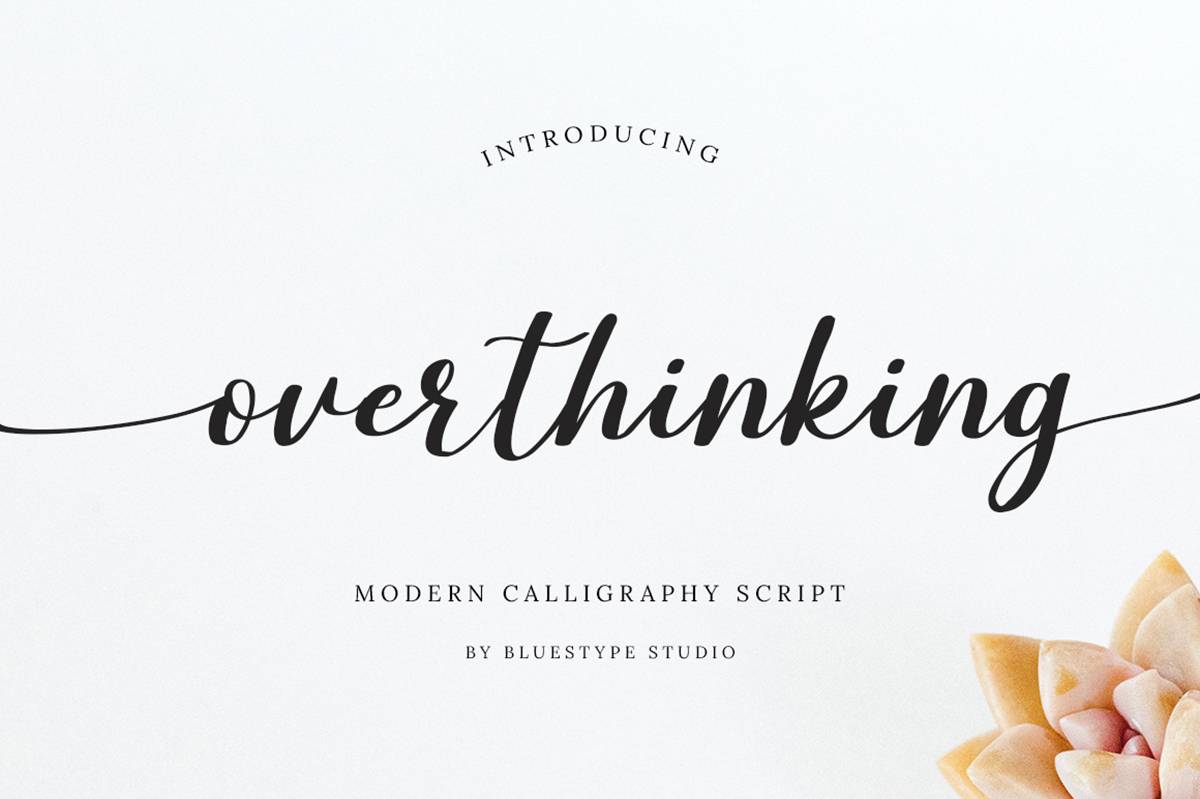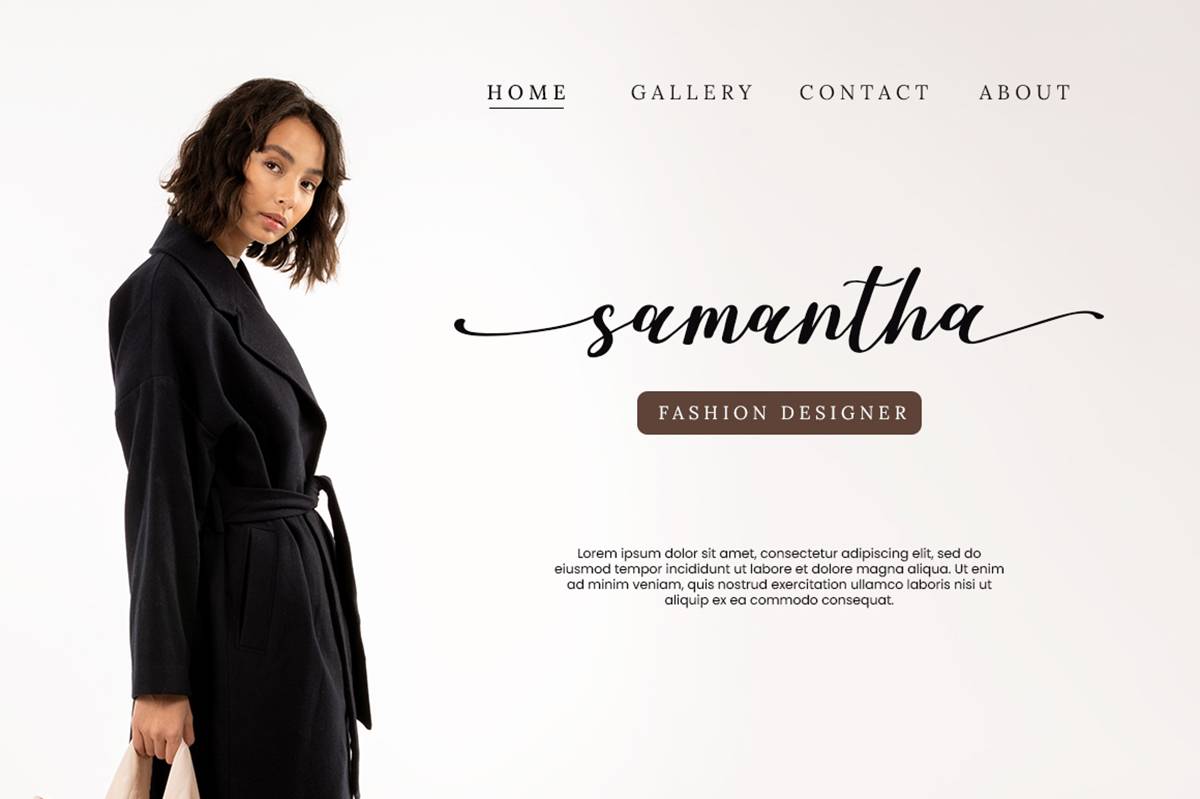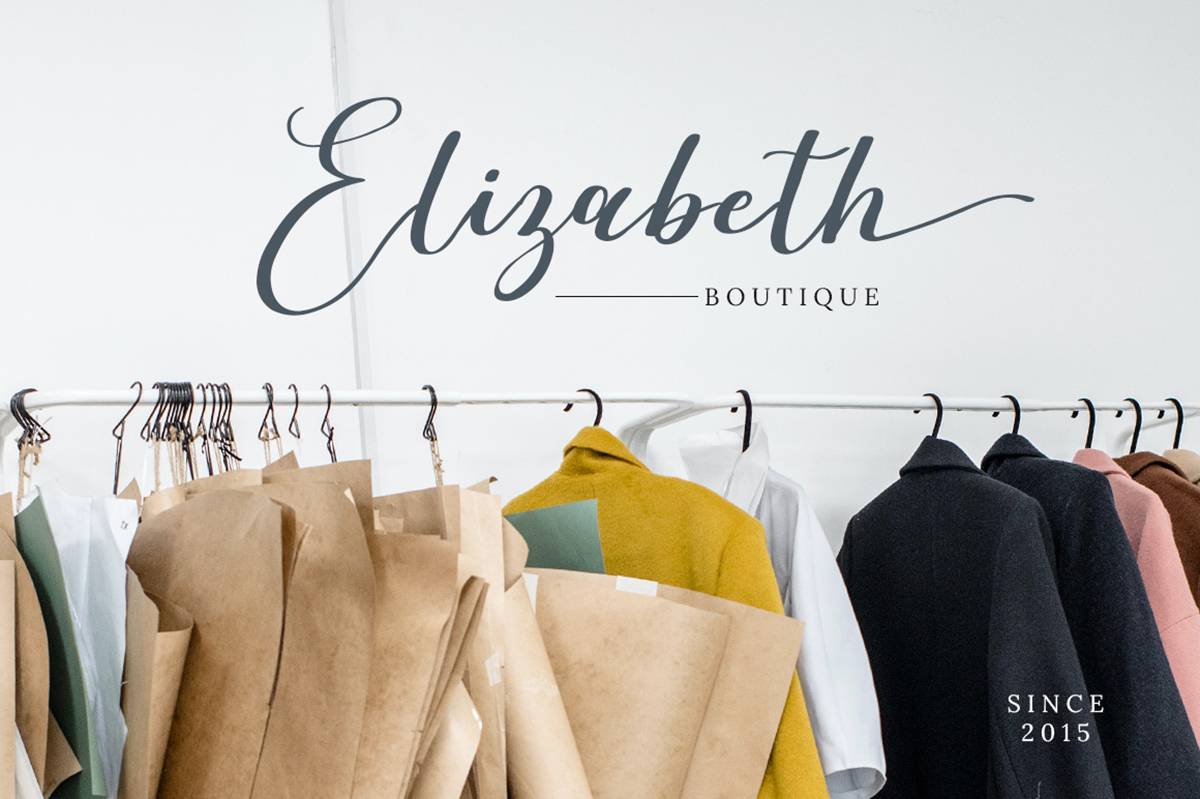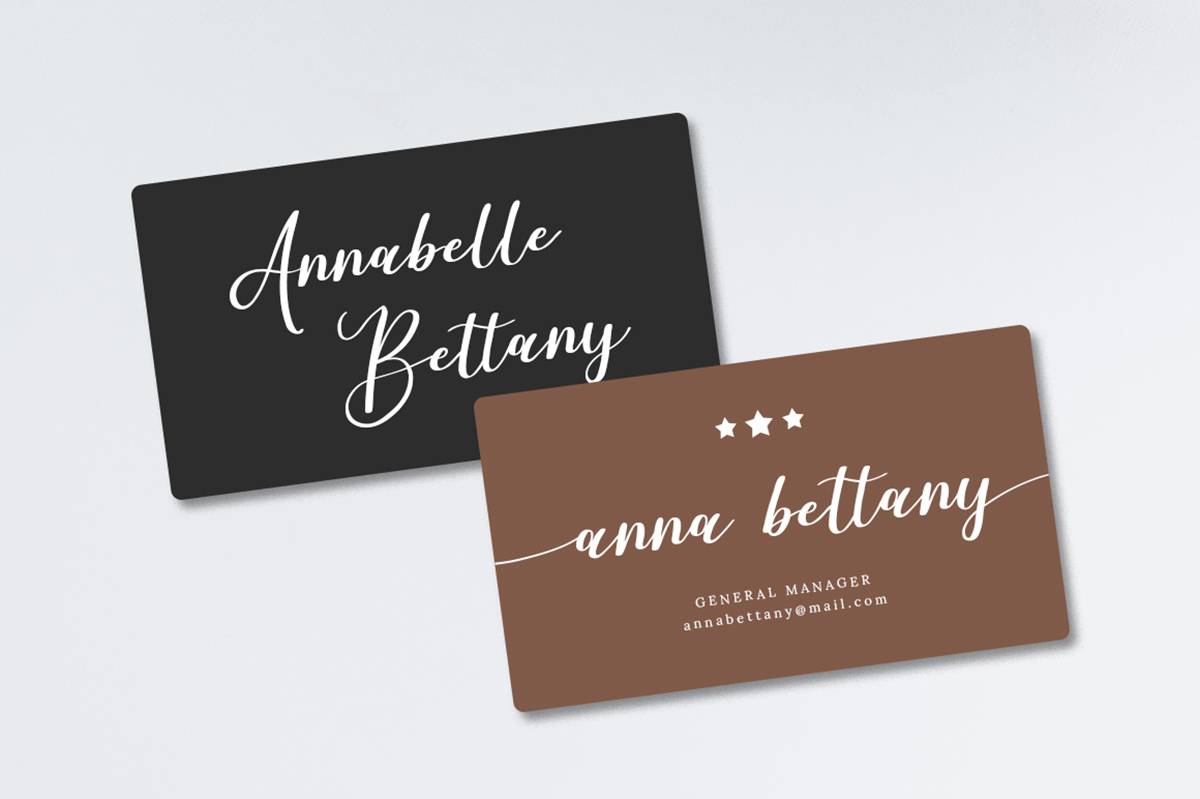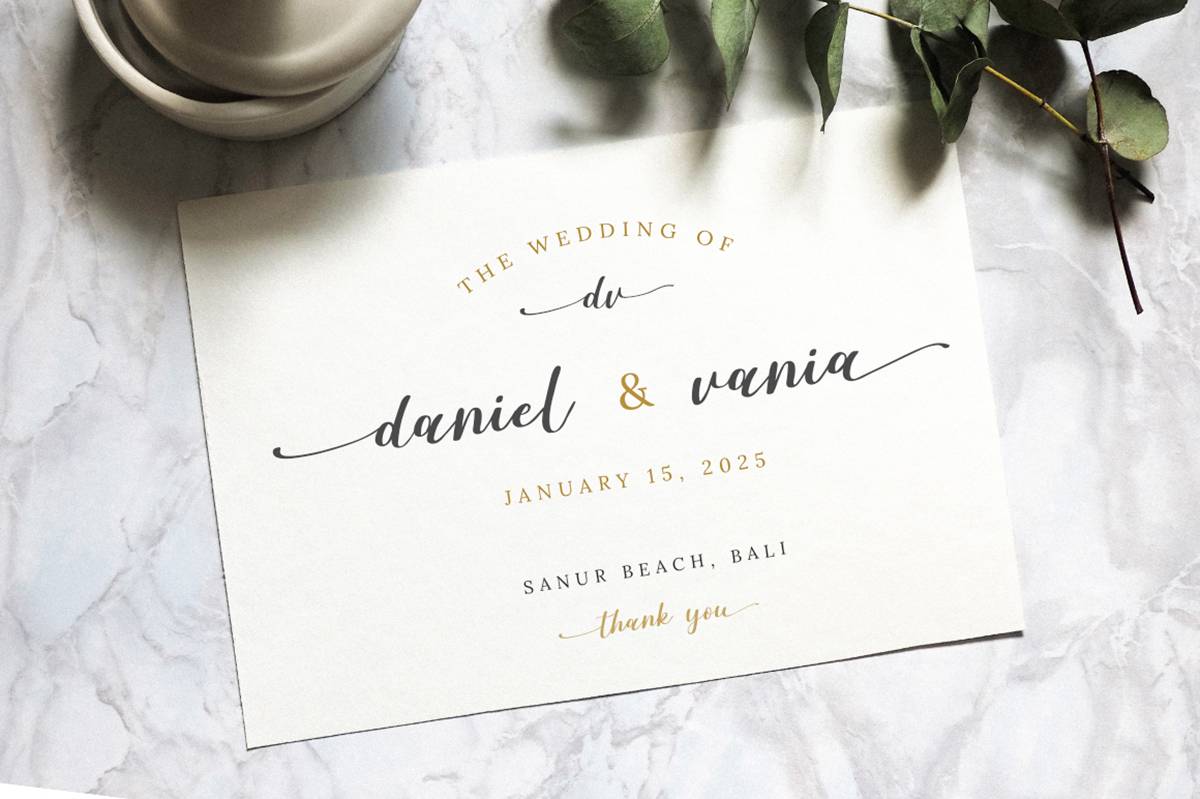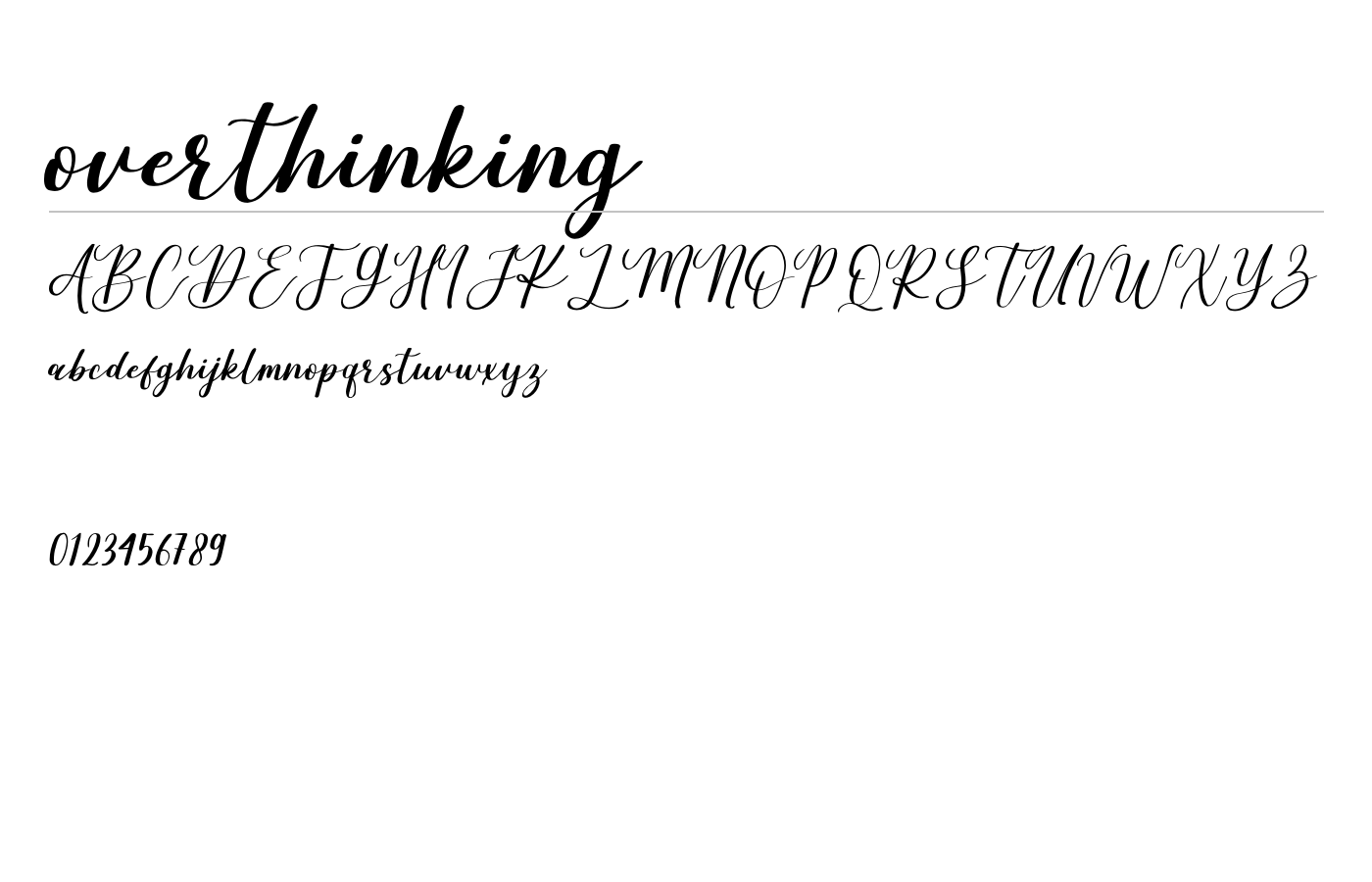
Overthinking Font is an elegant, flowing script with a modern calligraphic style, featuring graceful, connected letterforms and a subtle contrast between thick and thin strokes. Its refined appearance, with delicate uppercase characters and smooth lowercase shapes, suits sophisticated branding, invitations, or editorial headlines where a touch of artistry and charm is desired. This font brings a stylish and personal feel, perfect for projects that want to convey creativity and elegance.
Overthinking Font
About Overthinking Font